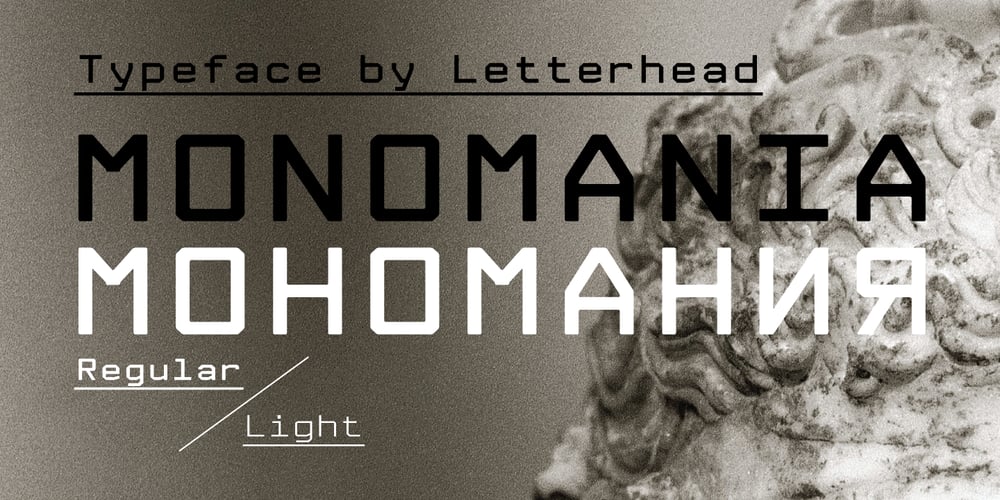
Monomania Font Family was designed by Valery Golyzhenkov and published by Letterhead Studio-VG. Monomania contains 2 styles and family package options. Monomania — is the display font with the mood of monospaced typefaces. Please put your attention to Small Caps, Oldstyle Figures and Alternates. Good for posters and magazines.